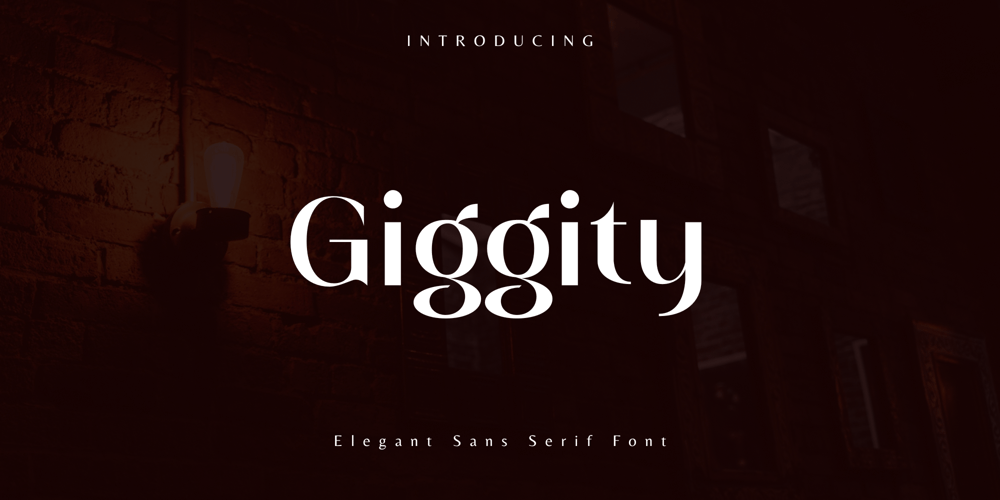
Giggity Font Family was designed by Nik Arliyan and published by Arliyan Creative. Giggity contains 1 styles and family package options. Discover Giggity Elegant Sans Serif font—a blend of sophistication and modern charm. Its sleek lines add class to any project, from logos to headlines. With timeless elegance, Giggity enriches your designs effortlessly.For support, please send direct message or email on arliyancreative@gmail.com